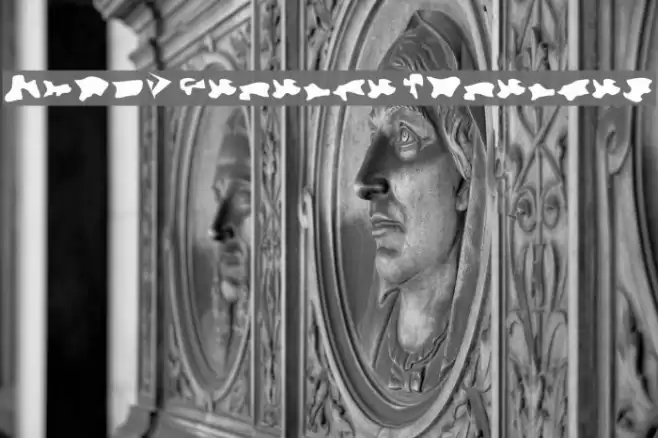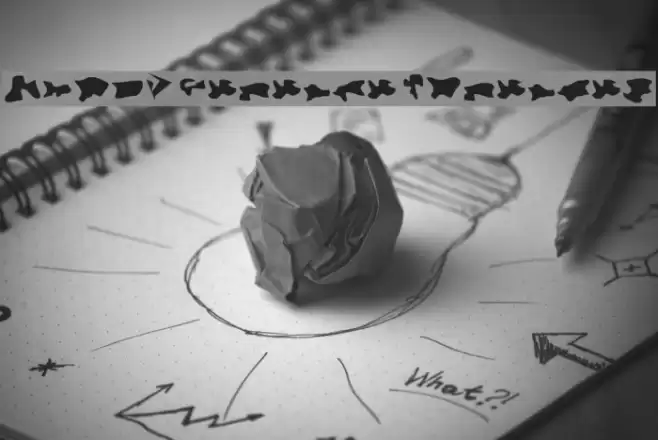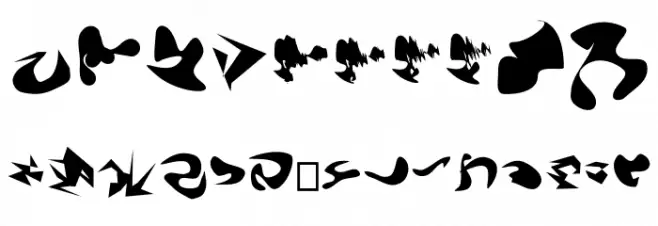
Camo3 Reverse Inverted Font
Camo3 Reverse Inverted Description
This font features an abstract and highly stylized design, with characters that resemble organic shapes and silhouettes. The letters are bold and have a fluid, almost liquid appearance, creating a sense of movement and dynamism. The font's unique style makes it stand out, with each character having a distinct form that challenges traditional readability. This design is more artistic than functional, making it ideal for creative projects where visual impact is prioritized over clarity.
An abstract, bold font with fluid, organic shapes from Uncategorized fonts.
- Proposed Projects: Ideal for artistic projects, abstract art pieces, experimental design work, and creative branding where visual impact is key.
- Use Case: Logos, Art projects, Experimental designs